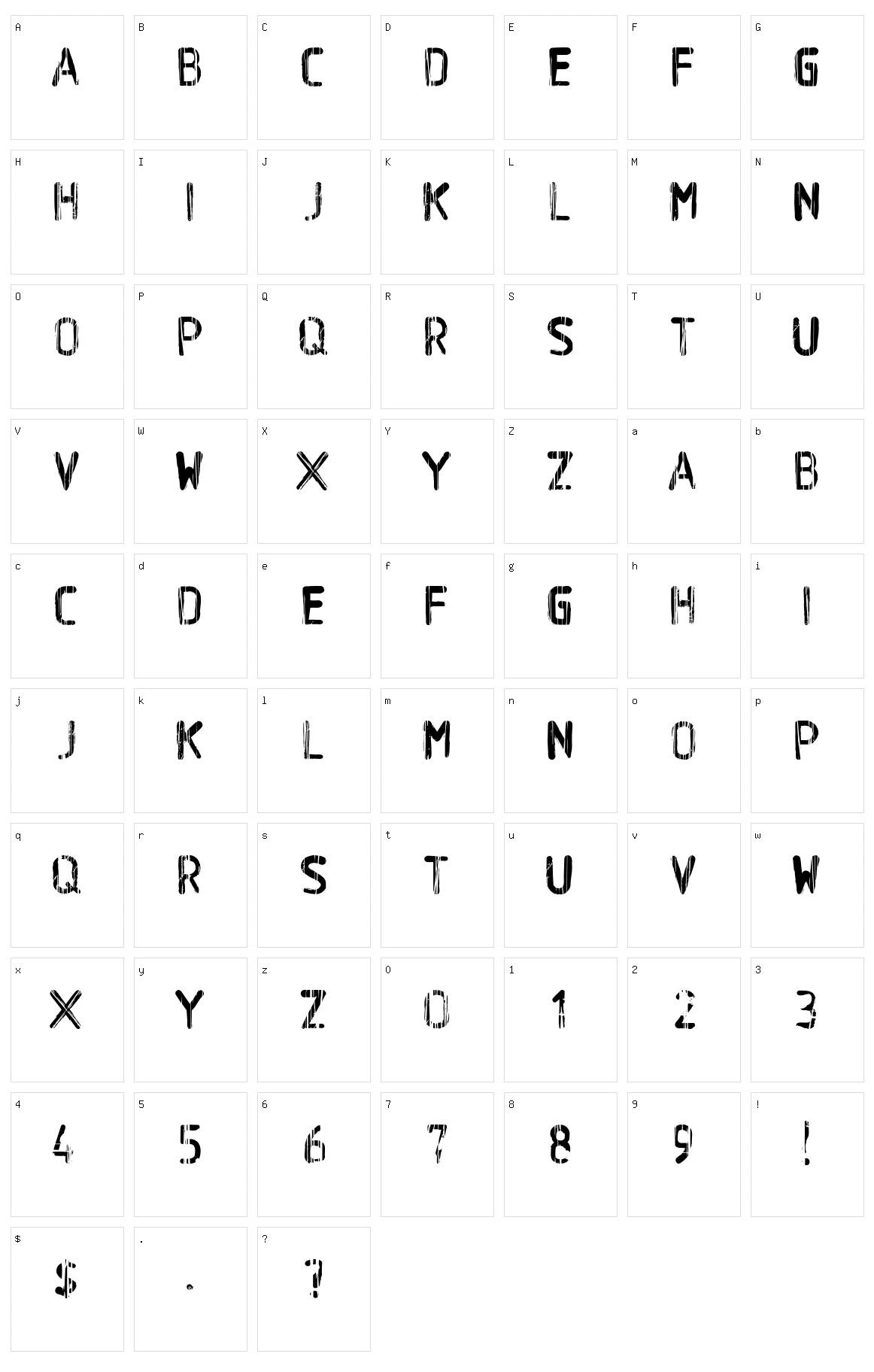
BA Wet Paint 1980, Created By S. Bradley Askew
Unreleased Betabetics Typeface.
Please understand, this Typeface was created in 2001 and was abandoned shortly after. IÕm only releasing the typeface now as part of a time capsule of unreleased work. It may contain unfinished ligatures or really poor kerning, ItÕs an unfinished specimen for the publics consumption. If you have any questions feel free to ask me.